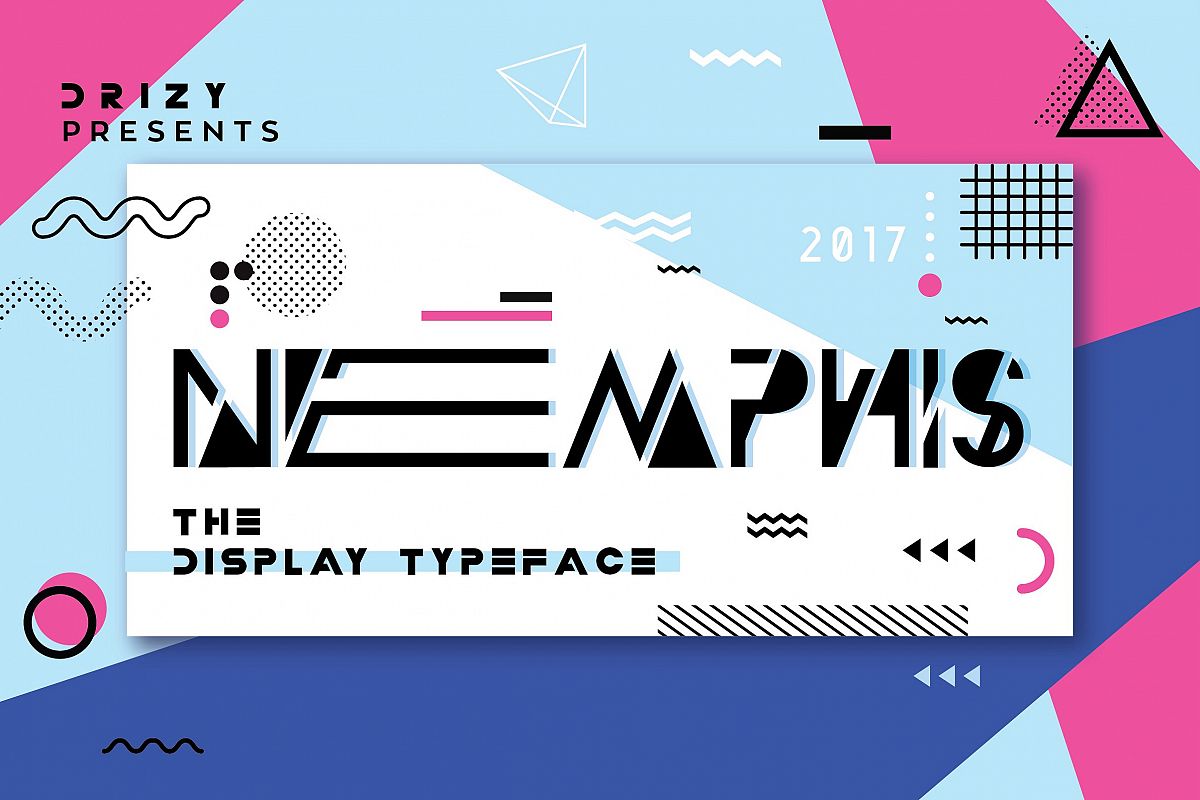
Nemphis
Introducing Nemphis a new display typeface inspired by Geometric trendy 80’s and Memphis Styles!! Nemphis is all caps typeface with detailed letters. Available in multiple widths, regular and wide too in one font!!. So you can combine them together and get some unique It features with upper & lower case characters, multilingual letters, numbers, and punctuation. This is perfect to sweeten up your headlines, logos, branding visual identity, editorial, poster, quotes, apparel, advertising, wedding invitations, packaging design, and etc. Included is a bonus extras ‘Vector Pack’ and ‘Memphis Seamless Patterns’. So you can go really awesome with all the sets combined together.